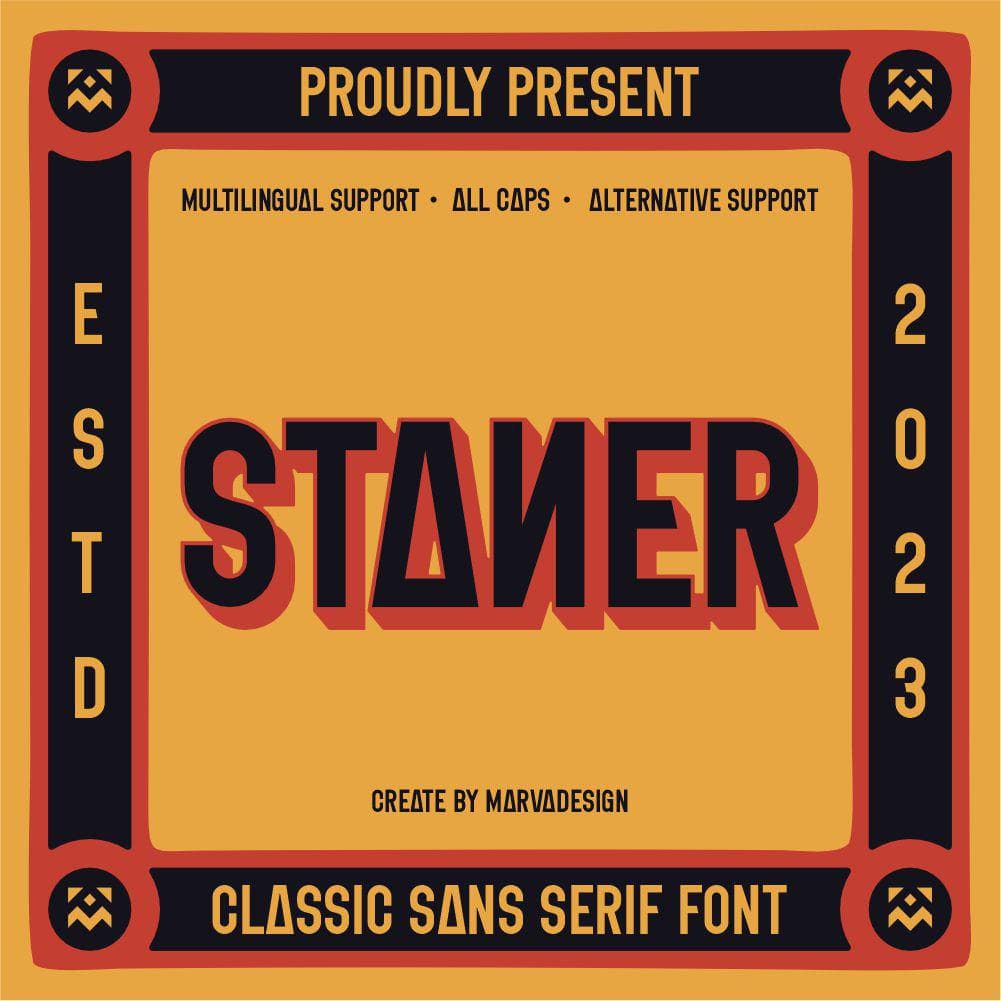
<p>Introducing *<em>Staner *</em>is a bold and dynamic sans-serif typeface with a vintage-inspired aesthetic. It features strong geometric shapes, sharp angles, and a distinctive use of alternative letterforms, particularly the incorporation of the triangular "A," which gives it a unique and striking identity. The font is designed in all caps, ensuring high legibility and visual impact, making it suitable for branding, packaging, and poster designs.<br>This typeface exudes a retro yet modern feel, blending classic typography with contemporary design elements. The use of thick strokes and slightly condensed letter spacing enhances its bold appearance, making it an excellent choice for attention-grabbing headlines. Additionally, the font supports multilingual characters, allowing for broader usability across different languages and regions.<br>The warm color palette used in the promotional designs—consisting of rich reds, oranges, and yellows—complements the vintage and handcrafted feel of the font, evoking a sense of nostalgia and craftsmanship. This font is particularly well-suited for products related to vintage labels, signage, and branding that aim to capture a timeless yet modern appeal.</p>